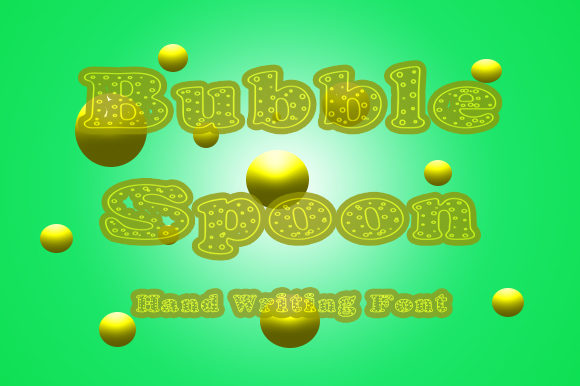
Bubble Spoon Font
About Bubble Spoon Font
The Bubble Spoon is an unique script font. It has a great readability and is perfect for logos, posters, banners, advertisements, quotes, and much more!